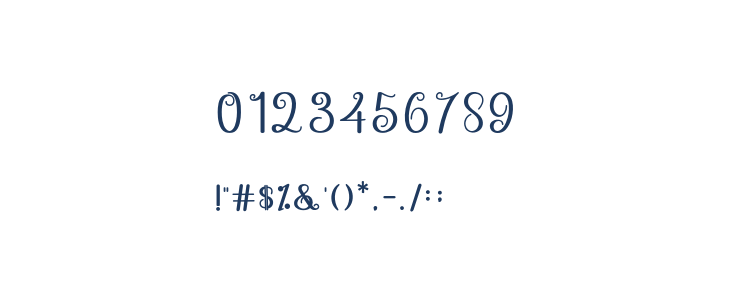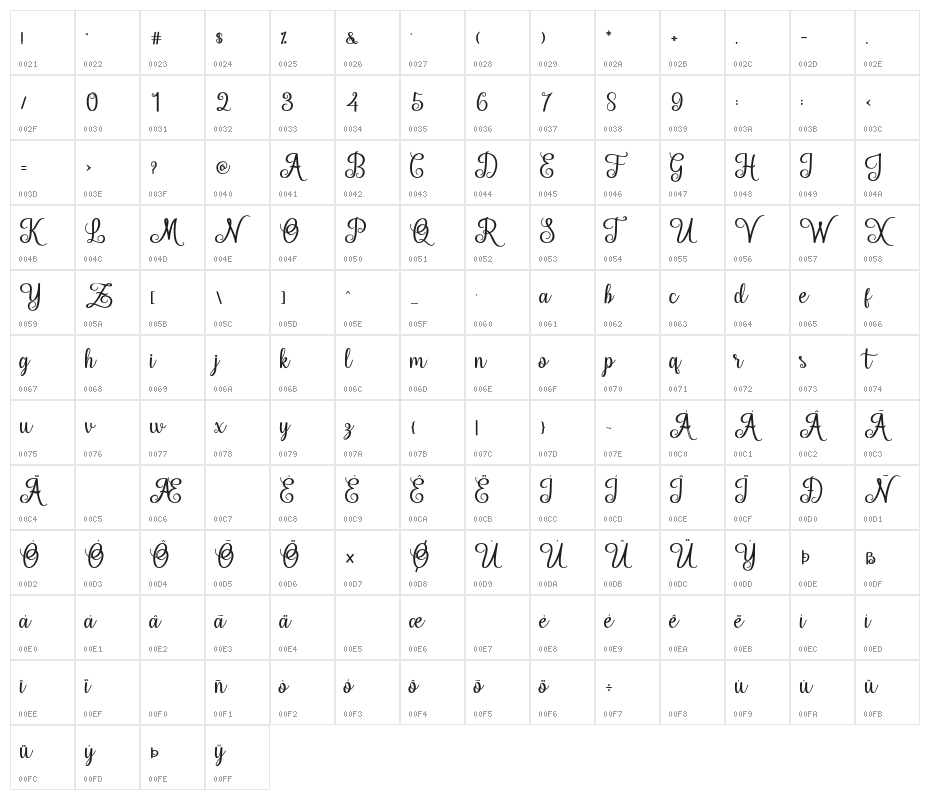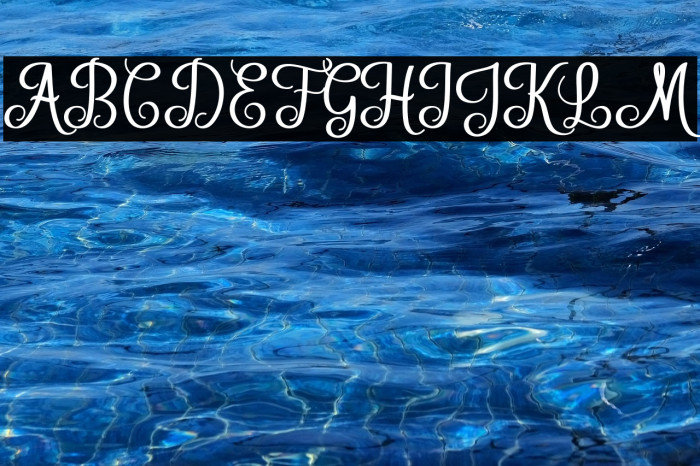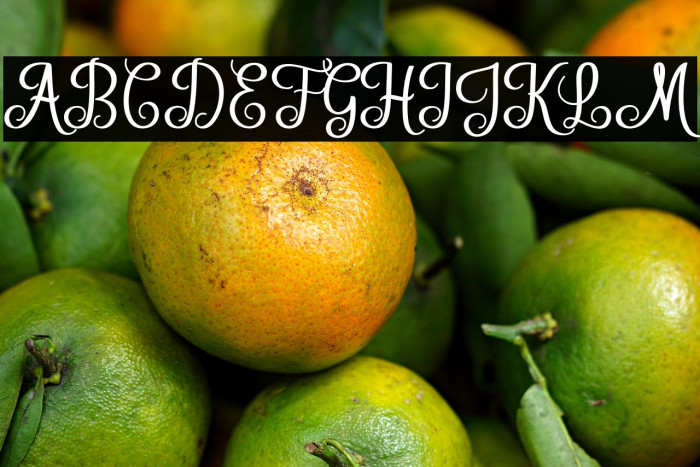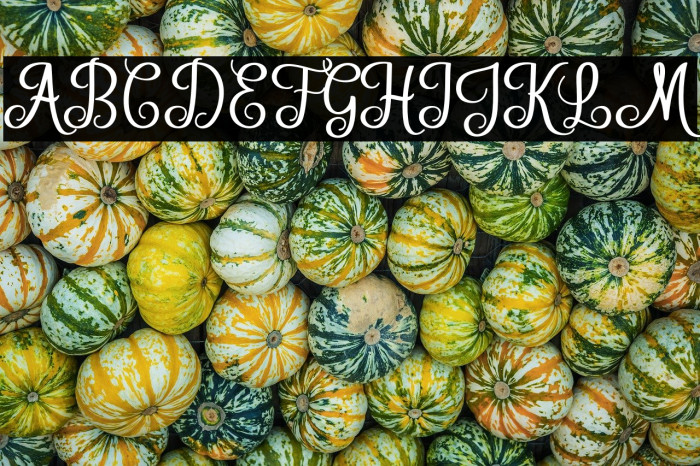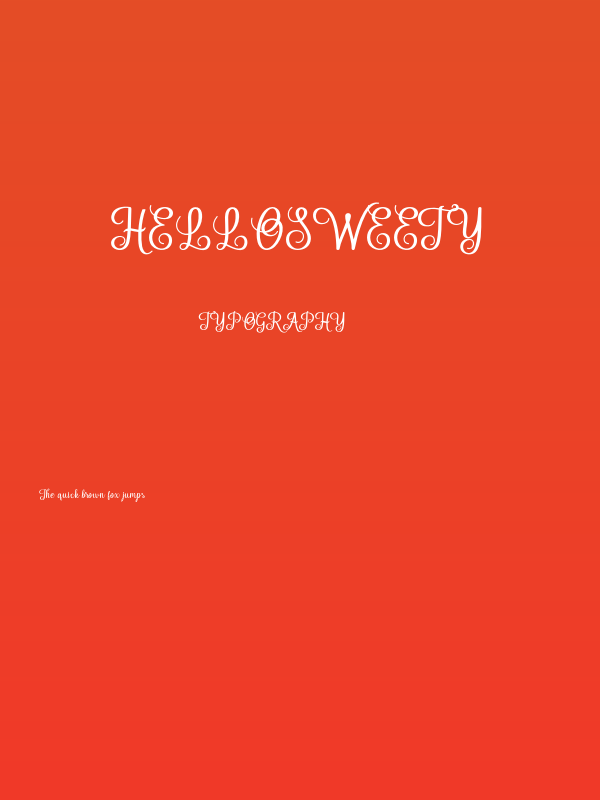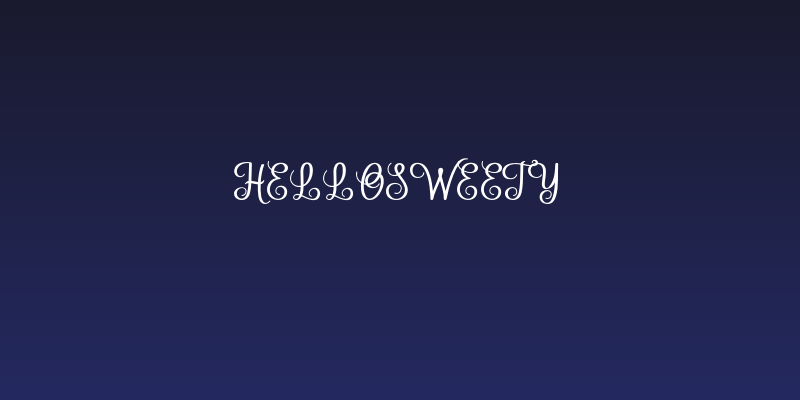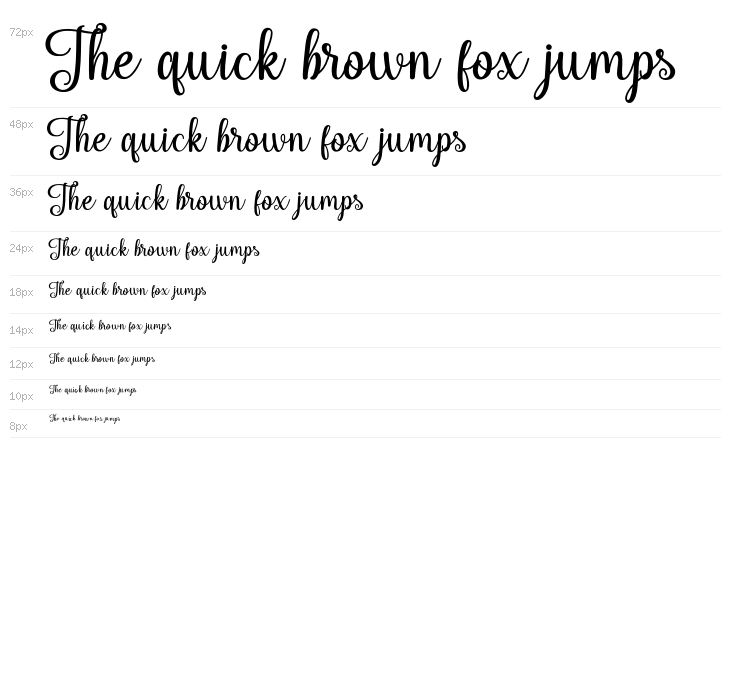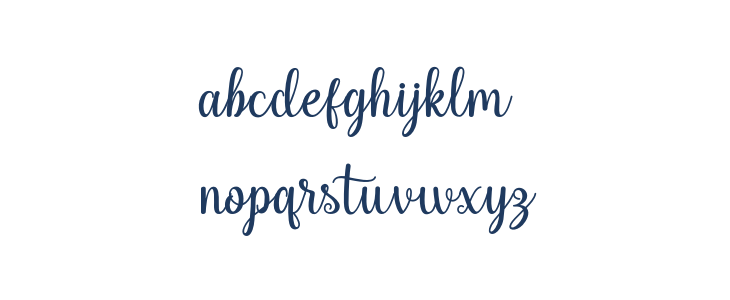
HelloSweety Font
HelloSweety Description
This font exudes a playful and elegant charm, characterized by its flowing, cursive script style. The uppercase letters are adorned with intricate swirls and loops, adding a decorative flair that captures attention. The lowercase letters maintain a smooth, connected flow, enhancing readability while preserving the font's whimsical nature. Numbers and special characters are designed with similar ornate details, ensuring consistency across all elements. The overall design is both sophisticated and approachable, making it suitable for a variety of creative applications.
| Use Case | Logos, Invitations, Decorative Text |
| Proposed Projects | Ideal for wedding invitations, greeting cards, branding, and logo design. |